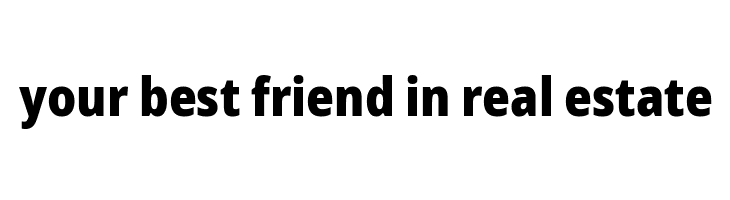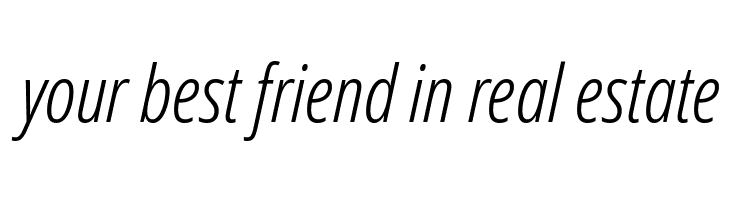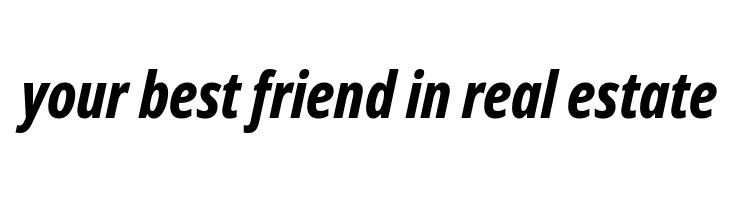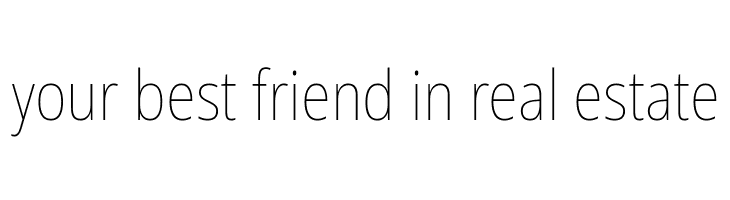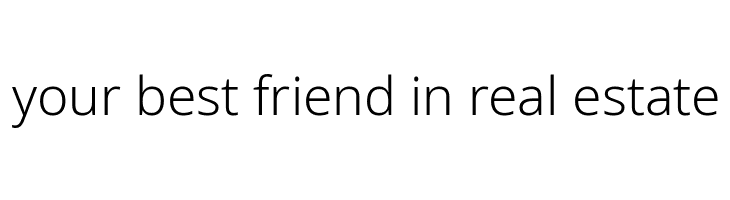
A bold, condensed sans-serif font with high contrast and tight spacing.
A sleek, extra-condensed, light, and italic sans-serif font with a modern style.
A bold, extra-condensed sans-serif font with italic styling and high contrast.
A modern, thin, and condensed sans-serif typeface with excellent legibility.
A clean, modern sans-serif font with a light weight and excellent legibility.
A modern, extra-condensed, bold italic typeface with a sleek and professional appearance.
Bold, semi-condensed Myanmar script font.
A classic serif typeface with elegant serifs and balanced proportions.
A bold, condensed font supporting the Lao script with a modern and professional appearance.
Modern, extra condensed Hebrew script font.
A semi-condensed, extra bold font with a modern yet classic style.
A bold, modern font with a strong, assertive presence.
A light, semi-condensed serif font with clean and modern characteristics.
A light serif font with elegant strokes and a classic appearance.
A modern, bold, condensed sans-serif font ideal for headlines.
A bold, extra-condensed font with uniform stroke weight and high legibility.
A sleek, modern, condensed, extra-light italic font with a clean and sophisticated look.
A clean, modern sans-serif font with uniform stroke width and excellent legibility.
Medium-weight serif font with classic, readable forms.
A clean, geometric sans-serif font optimized for UI clarity.
A bold, condensed typeface with a modern and clean design.
A sleek, extra light, extra condensed italic font with a modern aesthetic.